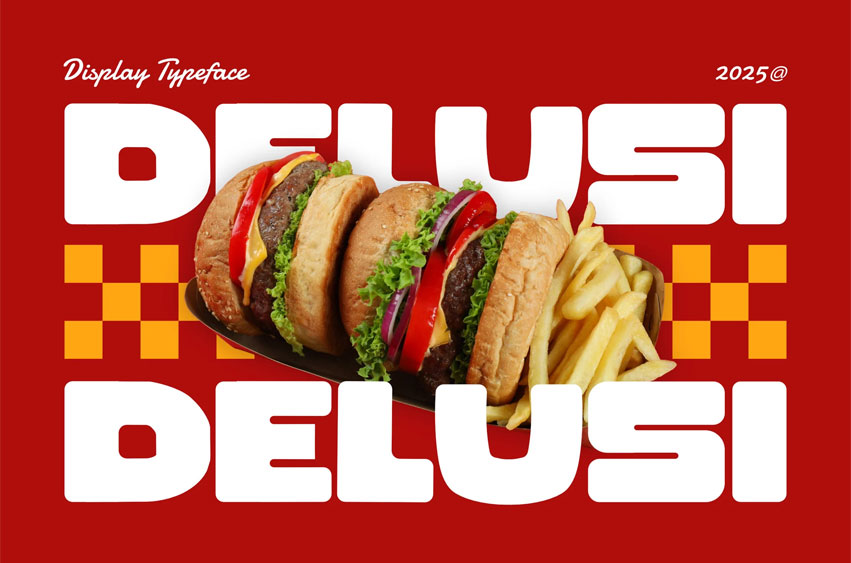
Delusi Font is a bold, playful display type designed to grab attention fast. Its chunky letterforms, rounded edges, and compact proportions create a friendly rhythm that feels energetic and fun. Built for food visuals, posters, and promotions, Delusi turns short messages into strong visual statements without sacrificing readability.
From food posters and menus to social media promos and packaging, Delusi helps brands look confident and approachable. It delivers bold headlines that feel lively and inviting—perfect for designs that need to stand out, spark interest, and leave a lasting impression in busy visual spaces.
• Bold & Playful Character Designed with thick strokes and rounded forms that create an energetic, friendly tone.
• High Readability at Large Sizes Optimized for headlines, posters, menus, signage, and promotional layouts.
• Food & Street Branding Focus Well-suited for restaurants, food trucks, snack brands, cafés, and event promos.
• Retro-Inspired Structure Chunky geometry and compact proportions deliver a nostalgic yet modern feel.
• Versatile Display Use Works across posters, packaging, social media visuals, and brand graphics.